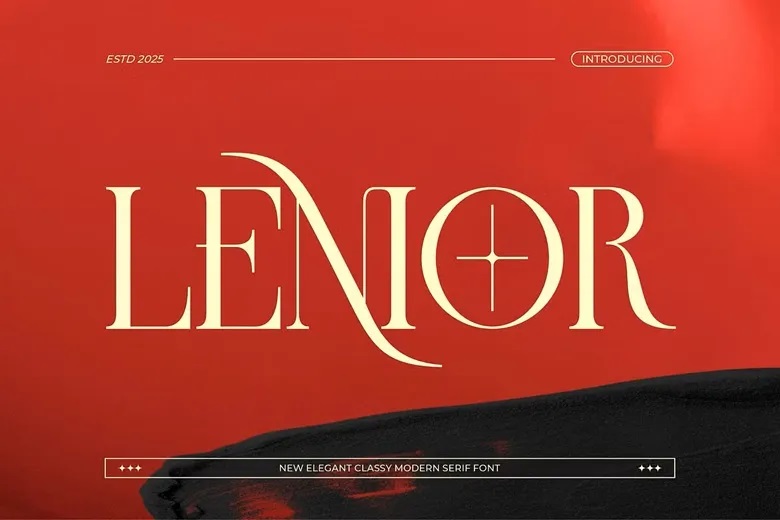
Lenior Font
Lenior is a new serif font for all branding and logo designs. This modern and classy serif font has a beautiful character. This font is suitable for invitation card designs, cool logos, movie titles, movie names, business cards, book titles, brand names, and various other designs.
Lenior Serif Font